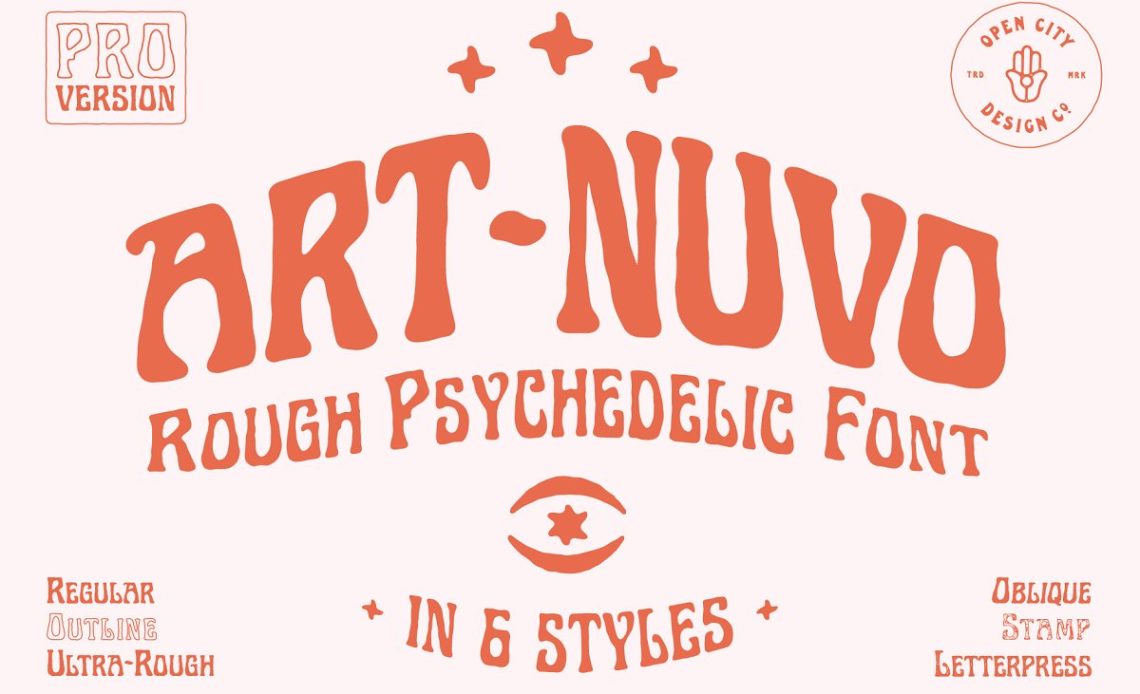
Are you looking for the perfect font to make your music artwork, posters or designs stand out? Look no further than Art-Nuvo - Rough Psychedelic Font. Created by Phil MacIsaac, this hand-drawn font family includes six styles that have been carefully crafted to capture the essence of trippy, experimental themes.
Art-Nuvo is not your ordinary font. It's an experience that will elevate your designs and take them to the next level. Its unique, rough, and edgy style is perfect for making a bold statement that will capture the attention of your audience. Whether you're looking to create a vintage-inspired poster or a modern album cover, Art-Nuvo is the perfect choice.
The font family includes six carefully crafted styles, each with their own unique characteristics. You'll get Art-Nuvo (OTF - 6 files), which includes uppercase, small caps, numbers, punctuation, and western European characters. You'll also get Art-Nuvo.otf, Art-Nuvo-Outline.otf, Art-Nuvo-Ultra-Rough.otf, Art-Nuvo-Oblique.otf, Art-Nuvo-Stamp.otf, and Art-Nuvo-Letterpress.otf. With all these options, you can mix and match styles to create the perfect design that suits your needs.
Art-Nuvo is not just a font, it's an emotion. It's a way to express yourself and make a statement that will leave a lasting impression on your audience. Its rough edges and psychedelic style evoke a sense of nostalgia and creativity that will make your designs stand out from the crowd.